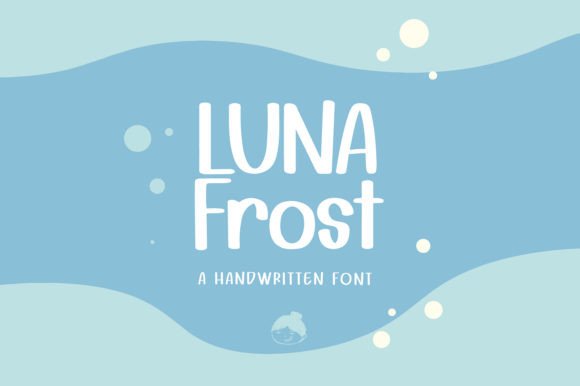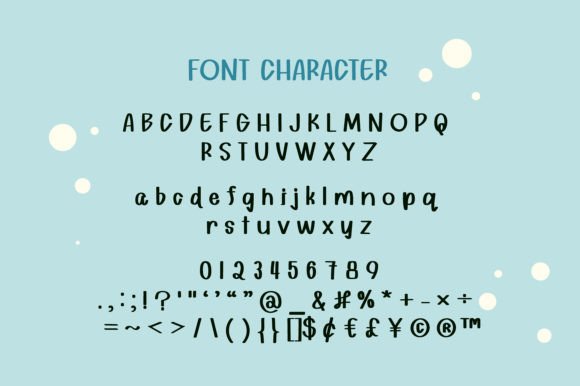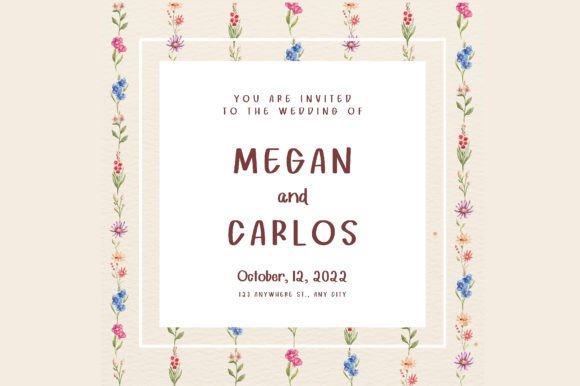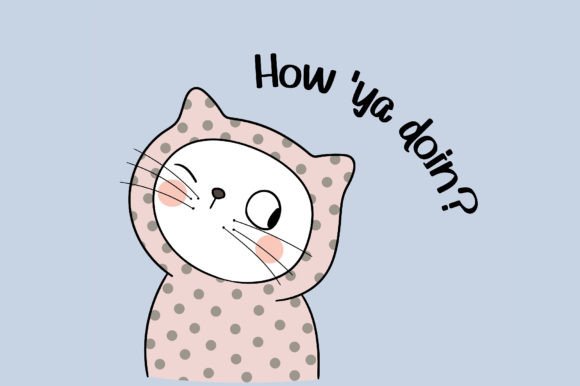
Luna Frost Font Font
About the Luna Frost Font Font
Let us introduce you to Luna Frost Font Font, where timeless design meets modern craftsmanship. Luna Frost is a sweet and friendly handwritten font. Its natural and unique style makes it incredibly fitting to a large pool of designs. The only limit is your imagination!
Luna Frost excels in projects requiring a friendly and approachable aesthetic. It’s ideal for headlines, short text blocks on invitations or greeting cards, and branding elements where a handcrafted feel is desired. Consider using it for logos, social media graphics, or packaging for products targeting a younger or feminine demographic. Avoid using it for large bodies of text or UI elements; its informal nature can hinder readability in extended passages.
Pairing Luna Frost with a clean sans-serif like Lato or Open Sans provides a strong contrast, balancing its handwritten charm with modern readability. For a more sophisticated feel, a classic serif such as Garamond or Merriweather could complement its sweetness. Avoid pairing it with overly decorative or highly stylized fonts, as this could create visual clutter and diminish its unique appeal.
Luna Frost’s overall personality is best described as friendly and approachable, possessing a youthful energy and a touch of whimsical charm. Its slightly imperfect forms convey authenticity and warmth, making it perfect for brands that value genuine connection and a handcrafted aesthetic.
Luna Frost Font Font Usage Examples
Luna Frost Font Font Example